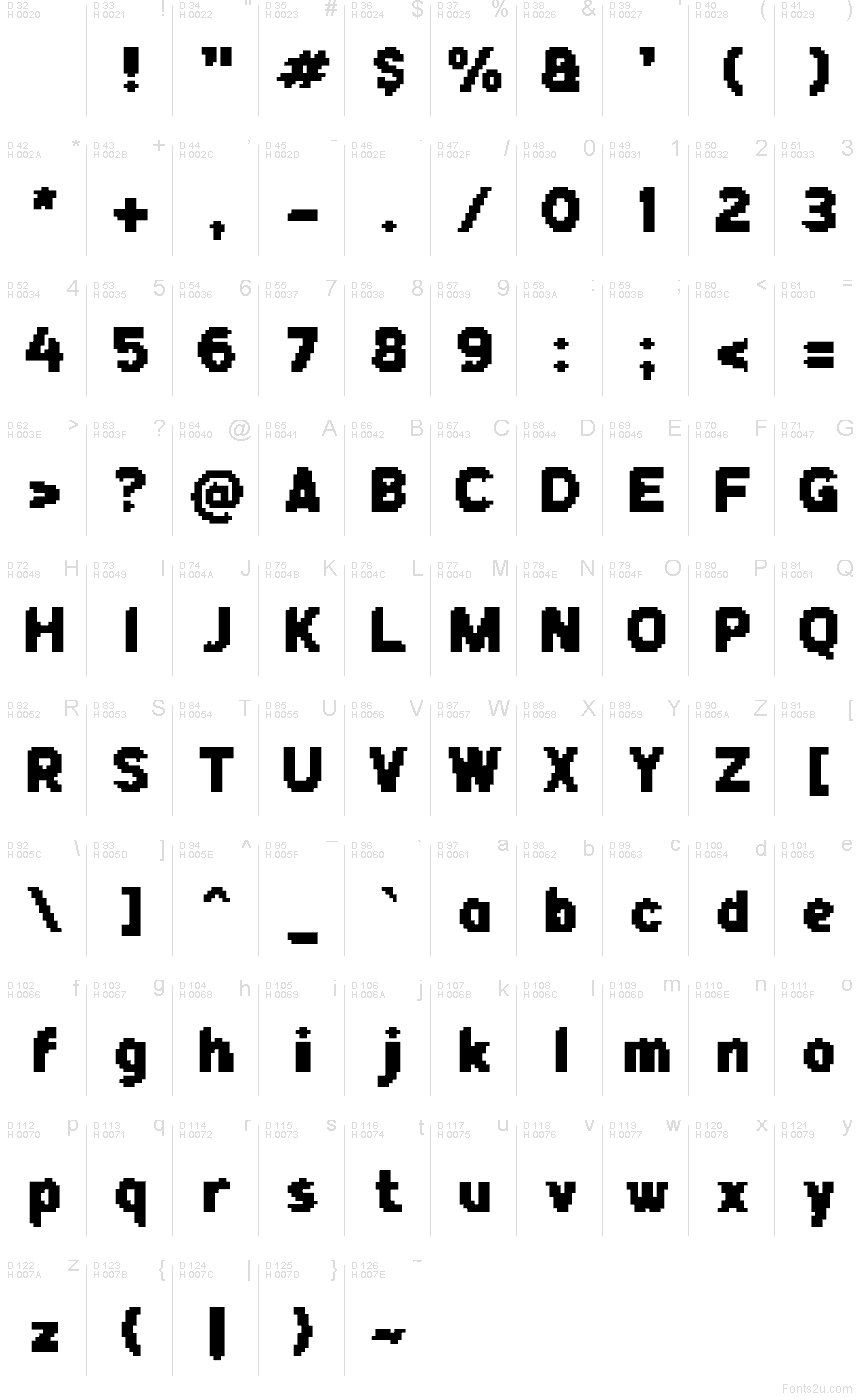
Qaroxe
Qaroxe font by wepfont.com is a free pixelated bitmap typeface that looks like it was lifted straight from a chunky 8‑bit title screen. Each letter is built from tight, blocky steps with squared edges and bold interiors, giving text a dense, solid feel that pops crisply at small sizes. The rhythm is compact and upright, so words lock together like tiles, making your text feel deliberate and engineered rather than loosely drawn.
Using Qaroxe in your project instantly signals retro gaming, chiptune, or lo‑fi tech vibes. This free font works beautifully for game logos, level titles, HUD labels, stream overlays, pixel posters, and app icons where you want that crunchy grid texture to really show. For longer text, pair Qaroxe with a clean geometric sans in a smaller size to keep things readable while the pixel typeface handles all the loud, characterful moments.